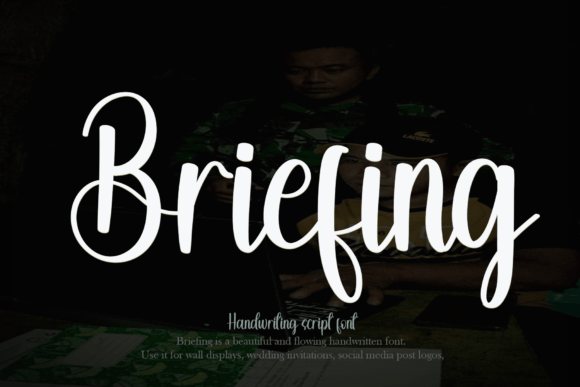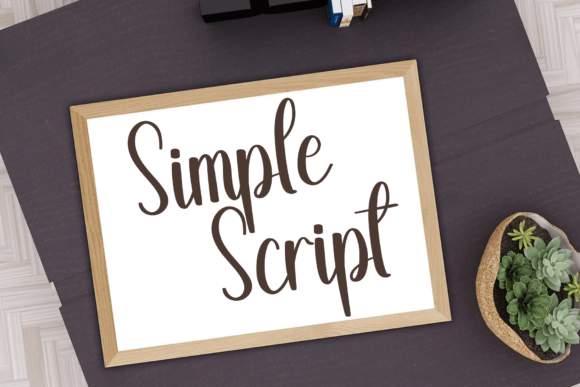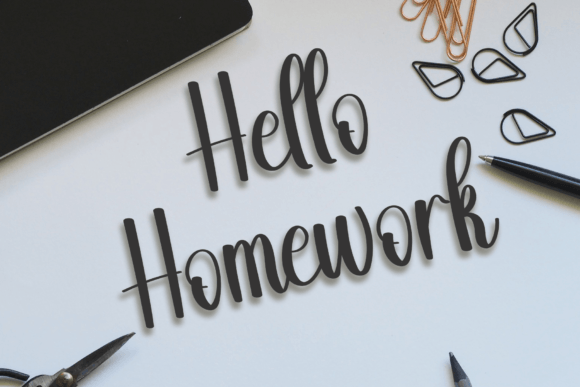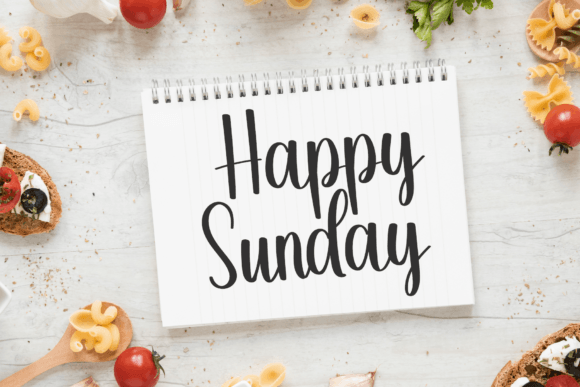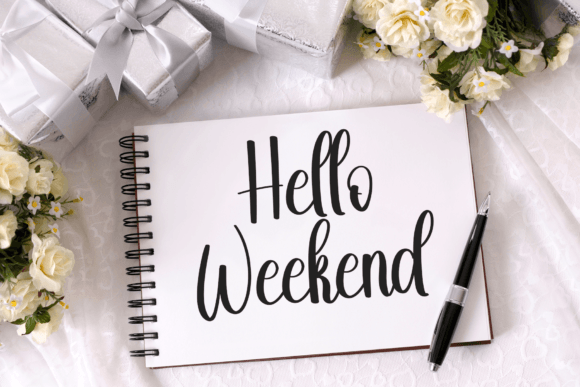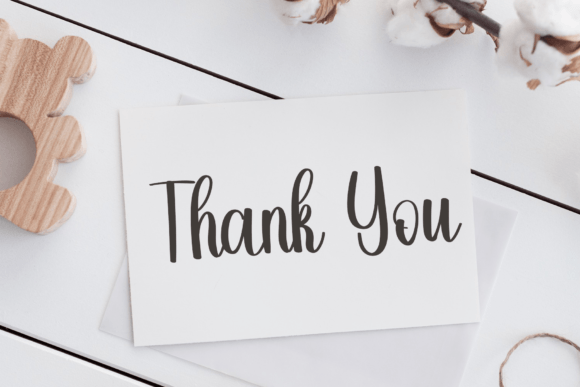
Briefing Font
About Briefing Font
“Briefing” is a fresh and beautiful handwritten font designed for a variety of purposes such as YouTube banners, cover logo mockups, wedding invitations, ID cards, flyers, and crafts. This font not only enhances the visual appeal of your designs but also carries the potential to contribute to the progress and development of your business. With its simplicity and uniqueness, Briefing is a versatile choice for a range of creative projects.
The freshness of Briefing imparts a vibrant and modern feel to your text, making it suitable for dynamic and visually engaging design elements. Whether you’re creating promotional materials, event invitations, or branding, this font is crafted to elevate your content with its beautiful handwritten style.
The simplicity and uniqueness of Briefing allow it to stand out, adding a distinctive touch to your designs. It brings a personal and approachable quality, making it a valuable asset for creating connections with your audience.
In summary, Briefing is more than just a font; it’s a design asset that injects freshness and beauty into your projects. Let Briefing be the choice that enhances your YouTube banners, logos, invitations, and more, bringing a touch of simplicity and uniqueness that sets your designs apart and contributes to the progress of your business.